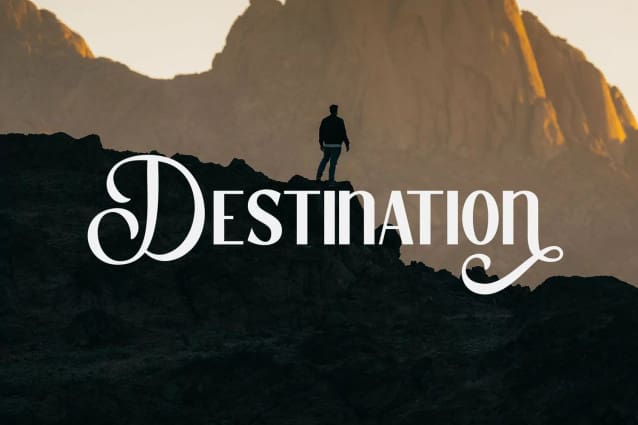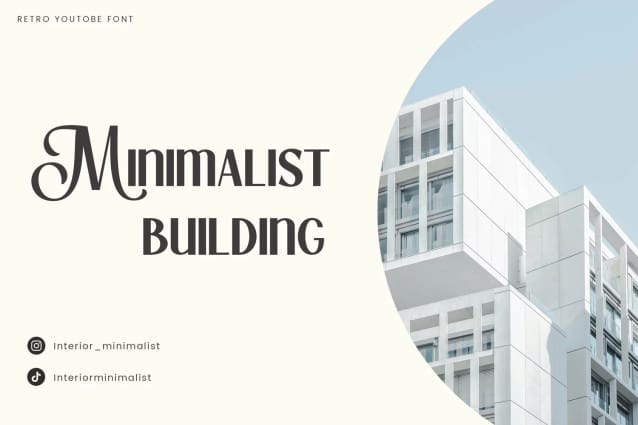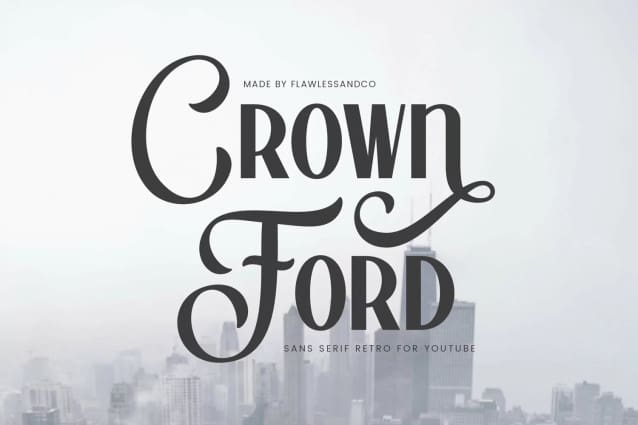
Crown Ford Font
Crown Ford Font, a bold and captivating sans-serif font designed to make your YouTube thumbnails stand out from the crowd. With its clean lines and geometric structure, Crown Ford exudes a sense of modernism and professionalism, perfectly complementing a wide range of YouTube content.
There’s some connected letters and some alternates that suitable for any graphic designs such as branding materials, t-shirt, print, business cards, logo, poster, t-shirt, photography, quotes .etc